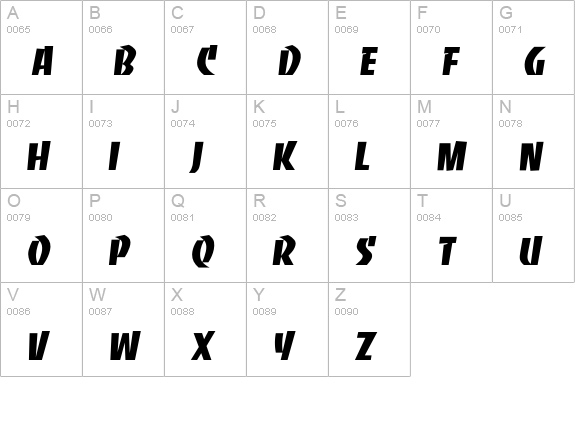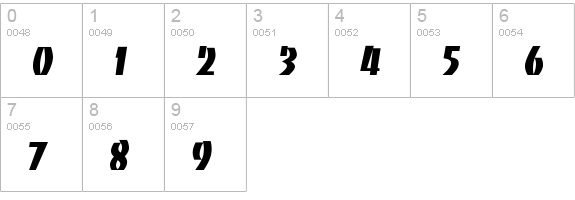
BancoFont Font Details
Introducing BancoFont, a sleek and modern font that is sure to make your designs stand out. This versatile typeface is perfect for a wide range of projects, whether you're working on branding, advertising, or editorial design. With its clean lines and contemporary feel, BancoFont exudes sophistication and style. The best part? BancoFont is available for free download at FontsMarket.com. That's right, you can access this high-quality font at no cost, making it a fantastic option for designers on a budget or anyone looking to add a touch of elegance to their work without breaking the bank. Whether you're creating a logo, website, poster, or any other design project, BancoFont has got you covered. Its bold and distinctive look will help your text pop and make a lasting impression on your audience. So why wait? Download BancoFont today and take your designs to the next level.